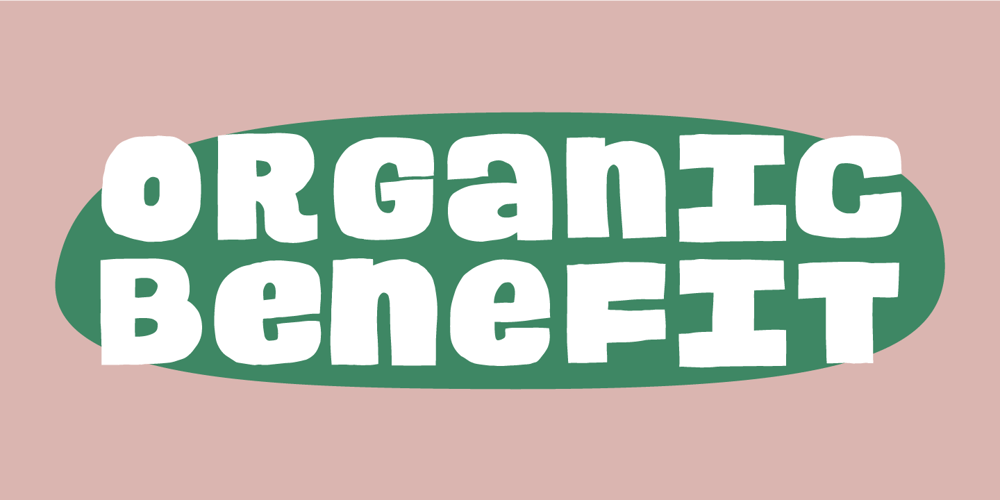
Organic Benefit Font Family was designed by Jakob Fischer and published by Bogstav. Organic Benefit contains 2 styles and family package options. Say hello to my new organic monospaced unicase font! It’s handmade and has this true organic look to it!Choose between 5 different versions of each letter, or just type ahead and let the Contextual Alternates do their cycling of letters automatically!